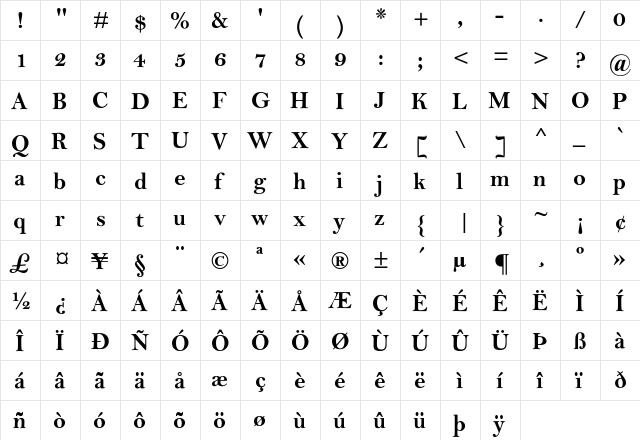
MBell-Bold Regular
Design Context for MBell-Bold Typeface
MBell-Bold offers clean, dependable letterforms without strong stylistic allegiance, making it a practical choice for designers who need flexibility. The heavy weight commands attention and anchors typographic hierarchies.
Pro Tip: Use MBell-Bold in both headline and body roles to test its range before committing to a single application.